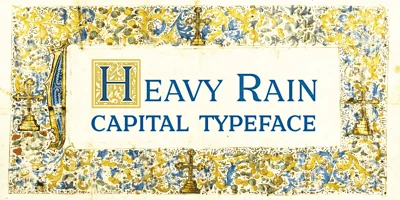
Heavy Rain Font
Heavy Rain Font is perfect for weather app interfaces, storm tracking software branding, outdoor gear company logos, emergency services communications, dramatic movie titles, atmospheric music album covers, natural disaster awareness campaigns, and moody artistic project designs.
Heavy Rain Font is exciting because it captures the raw power and emotional intensity of nature's most dramatic moments with its bold, storm-charged letterforms that seem to cascade like torrential downpours across the page. The typeface embodies the fierce beauty of tempestuous weather and the primal connection between humanity and nature's overwhelming forces, creating an immediate sense of atmospheric drama and elemental power.
Heavy Rain Font family includes Light, Regular, Medium, Bold, and Storm variants, complemented by weather-inspired texture effects and atmospheric decorative elements, providing designers with powerful typography tools for creating communications that harness the emotional impact of natural phenomena.
Whether you're developing weather service branding, designing outdoor adventure marketing, or creating atmospheric entertainment content, Heavy Rain Font delivers unmatched dramatic presence and natural authenticity. This remarkable typeface perfectly balances meteorological inspiration with functional clarity, ensuring your communications resonate with audiences who appreciate the awesome power of nature and the emotional depth that weather can evoke. The font's dynamic character structure and stormy rhythm make it particularly effective for brands that emphasize resilience, natural forces, and the kind of dramatic storytelling that connects human experience with elemental power. Environmental and outdoor industry professionals consistently select Heavy Rain Font when projects require typography that communicates intensity, natural beauty, and the kind of atmospheric drama that transforms ordinary communication into compelling narratives, making it essential for weather service branding, outdoor equipment marketing, and any application where powerful typography can evoke the magnificent force of storms and the profound emotional connection between humanity and the ever-changing moods of our natural world.